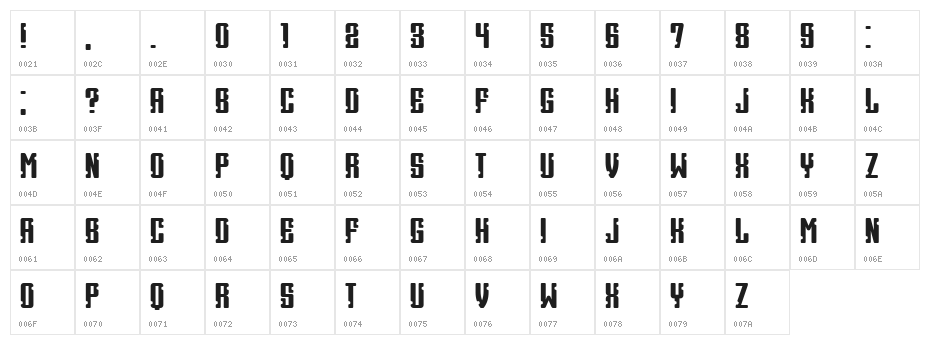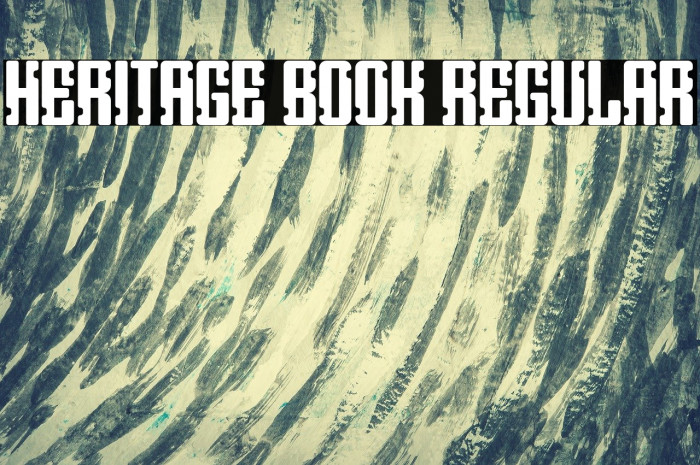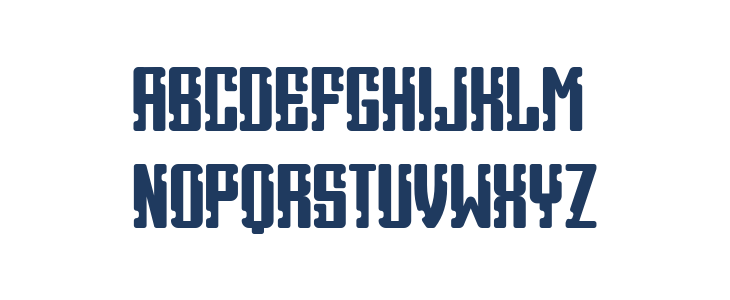
Heritage Book Regular Font
Heritage Book Regular Description
This font features a bold and distinctive design with strong, block-like characters. Each letter is crafted with a unique, decorative flair, incorporating elements that give it a vintage and ornamental appearance. The uppercase and lowercase letters maintain a consistent style, with sharp edges and a robust presence. The numerals are equally bold, ensuring they stand out in any design. Special characters are designed to match the overall aesthetic, making this font ideal for creating eye-catching headlines or logos.
| Proposed Projects | Ideal for vintage-themed posters, logos, branding, and headlines that require a strong visual impact. |